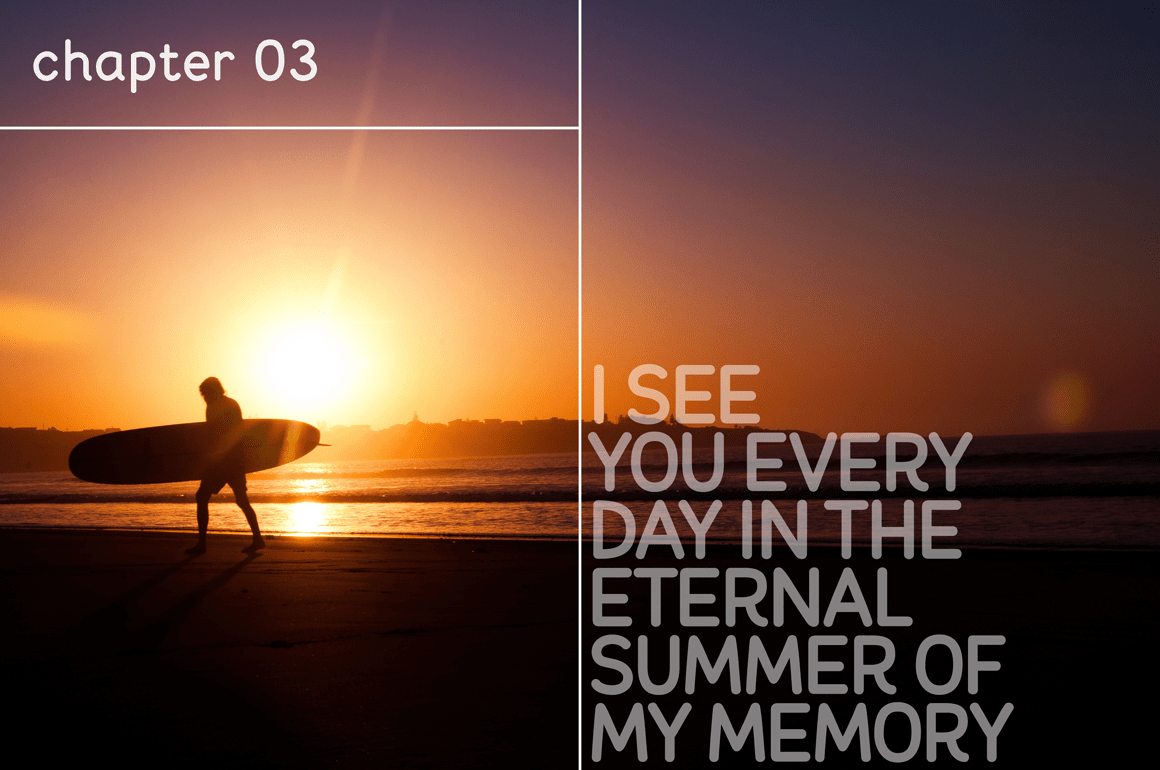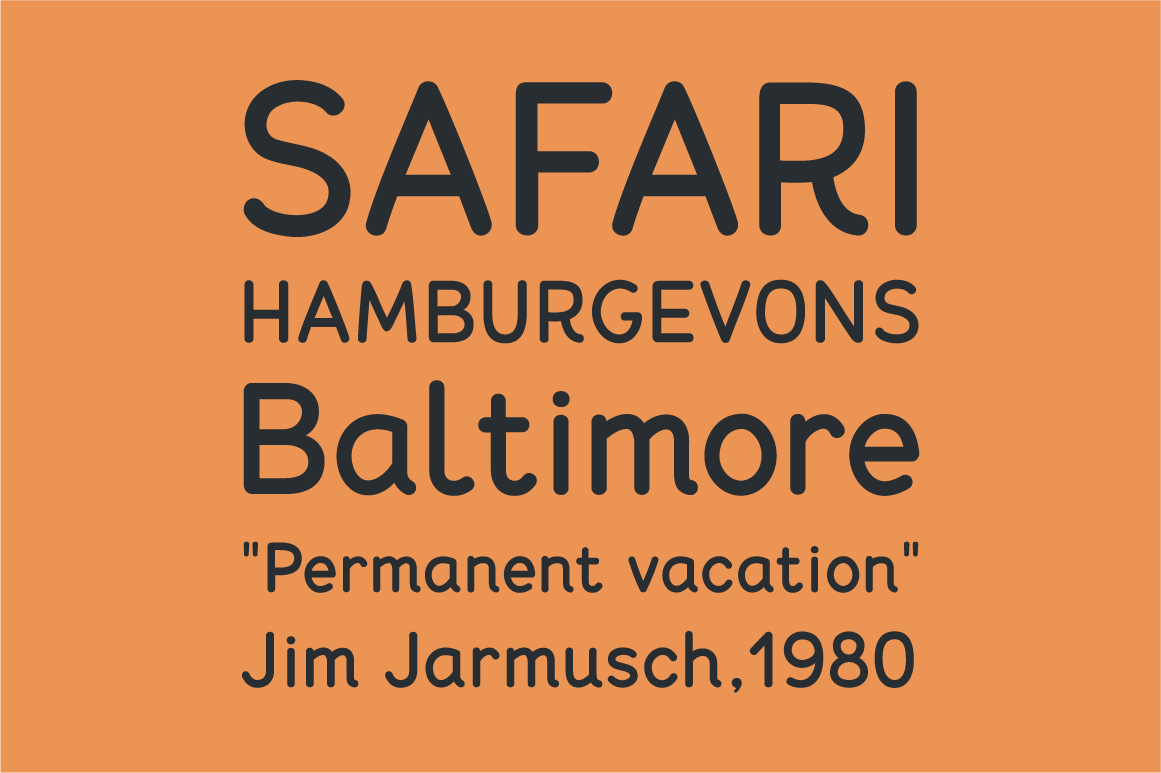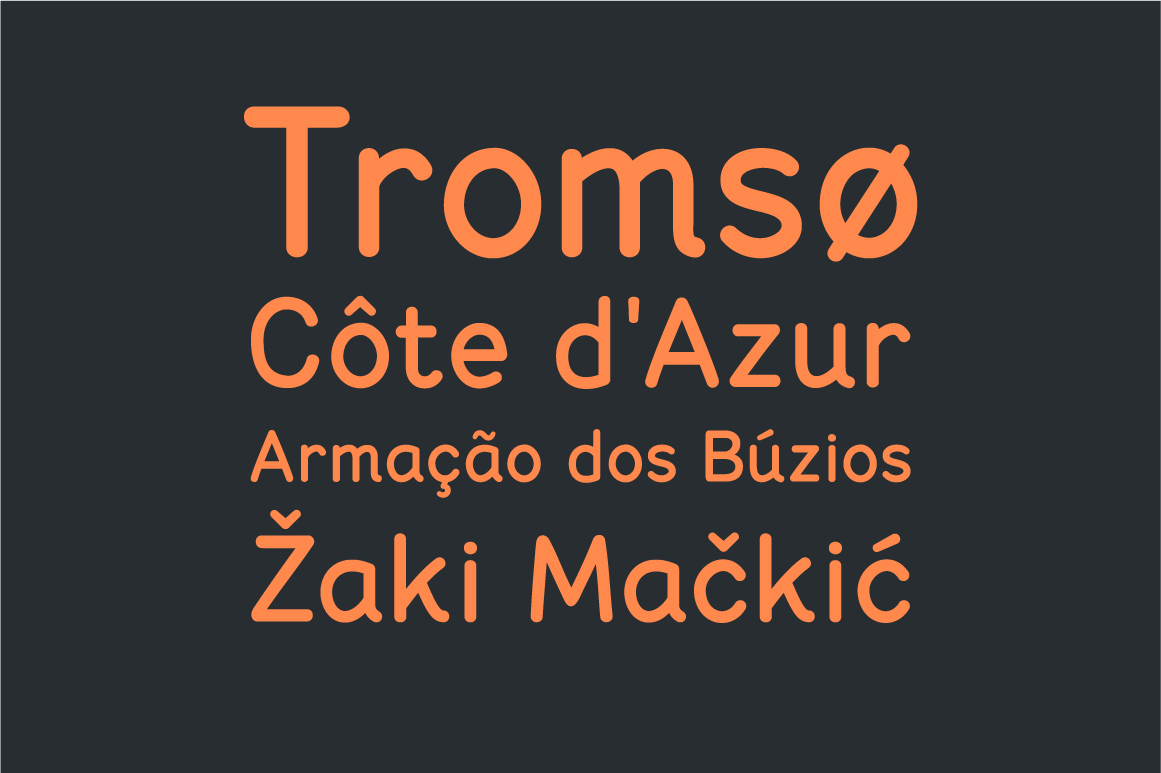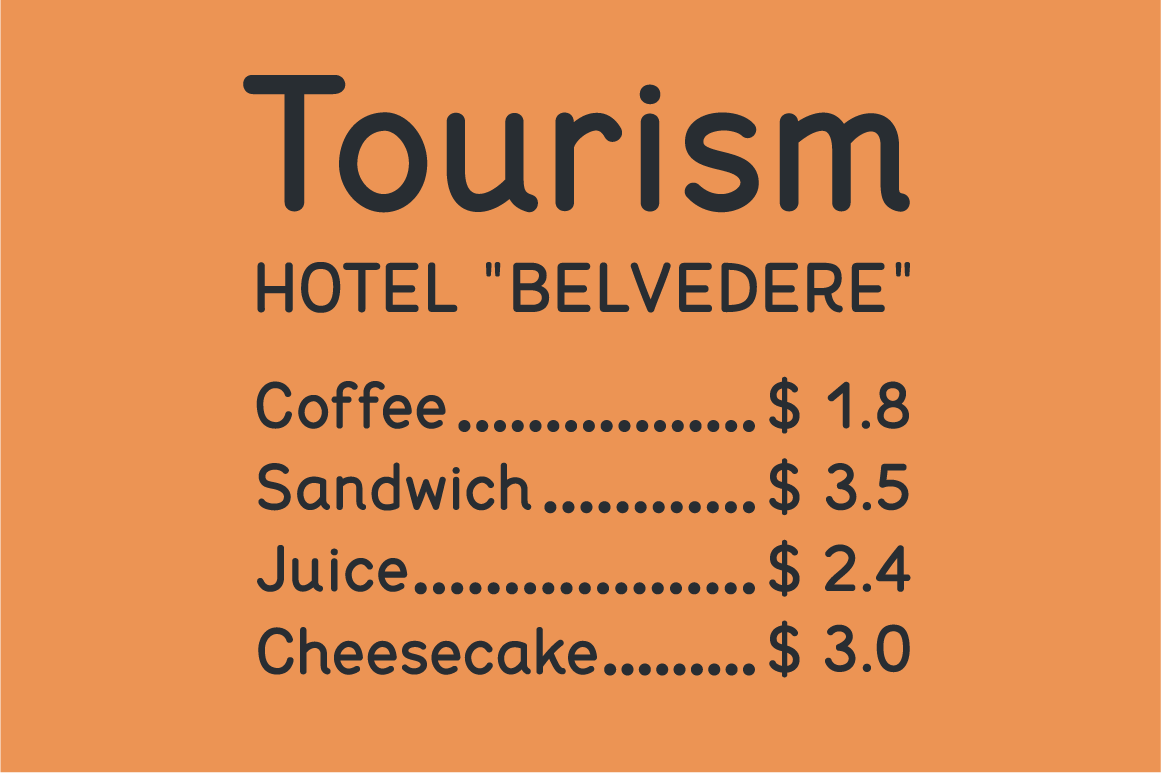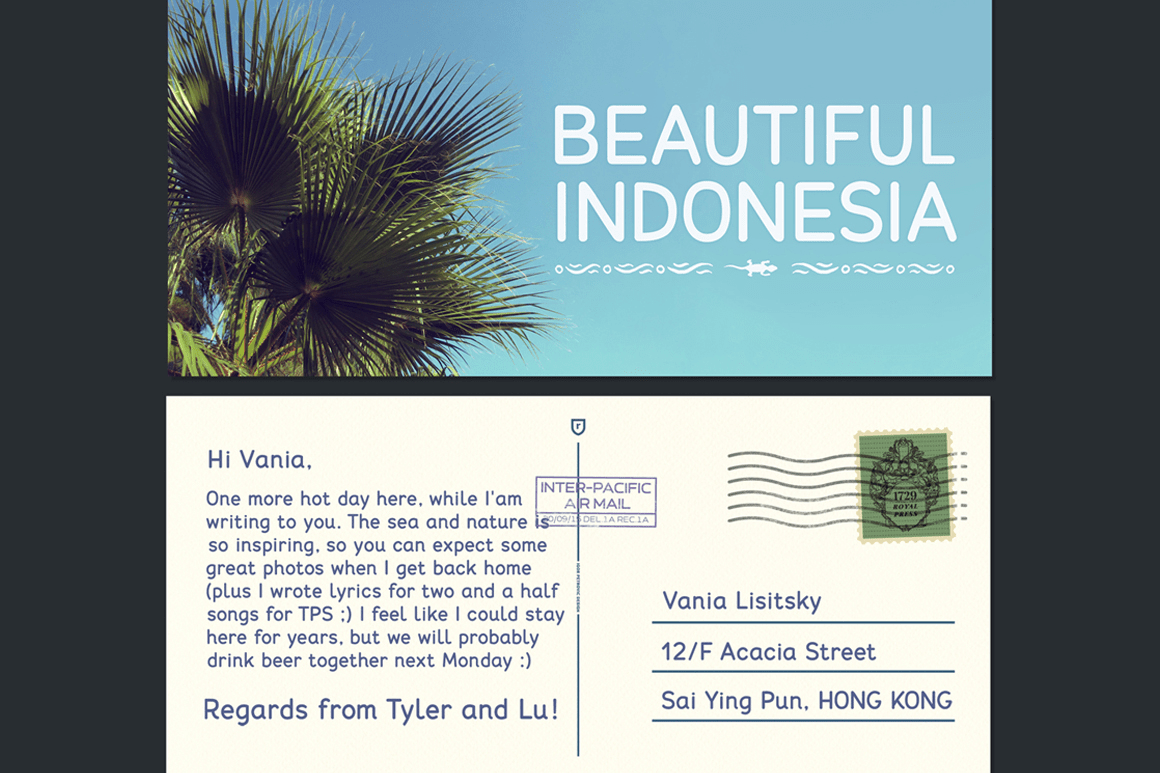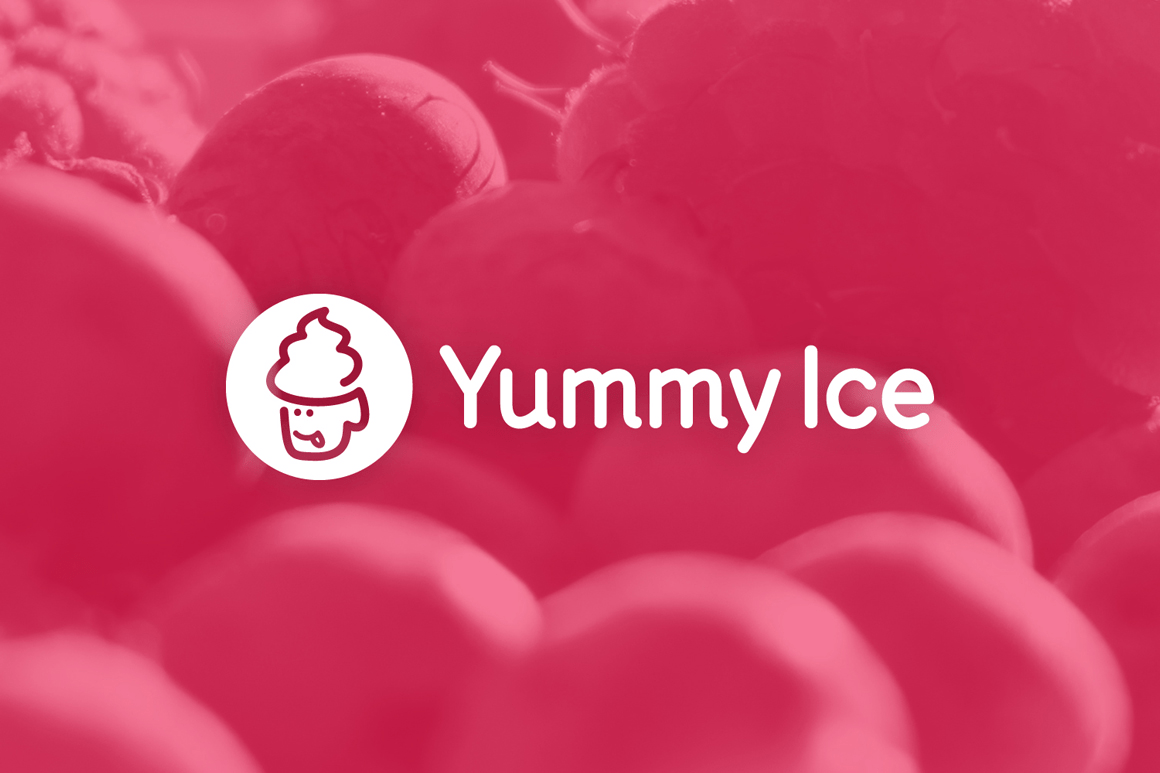
Postcard
About Postcard
POSTCARD is a typeface with round corners and an authentic handwritten look that brings charm to your artwork while retaining a good design taste. It is natural, relaxed, and sincere. Works perfectly for projects where you want to convey emotion, warmth,…